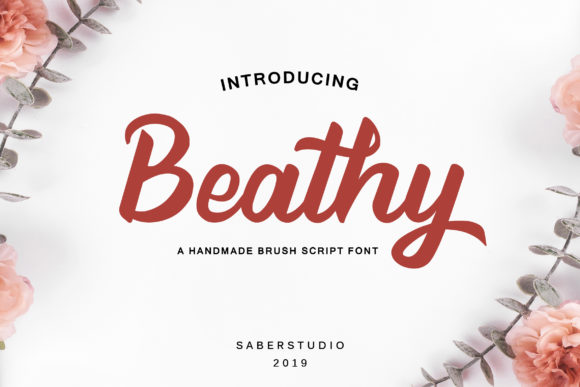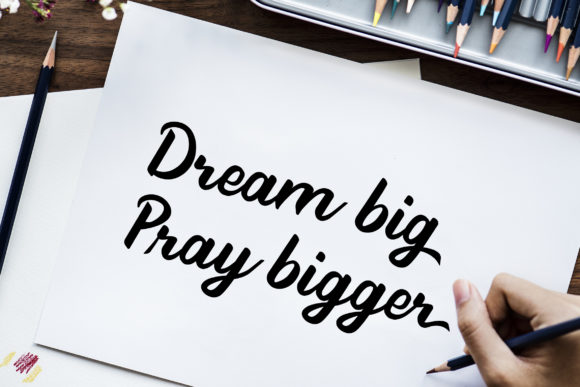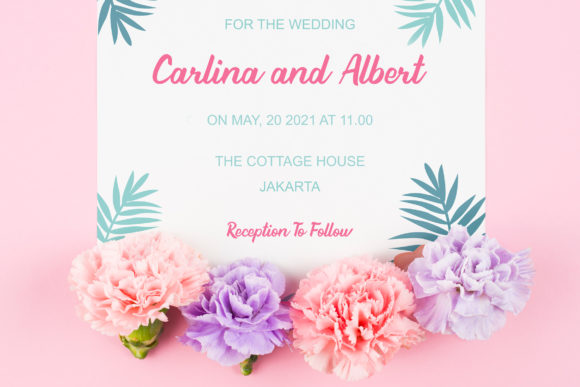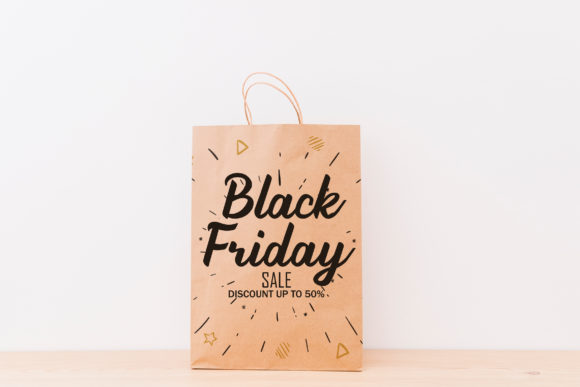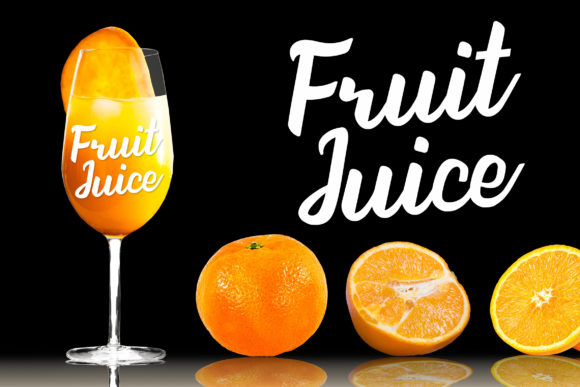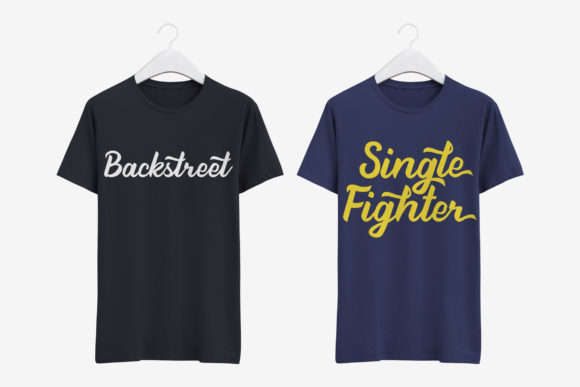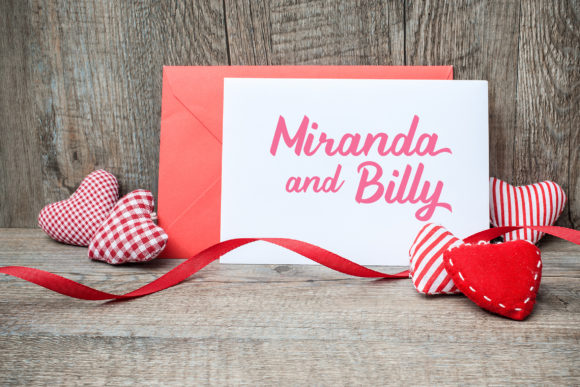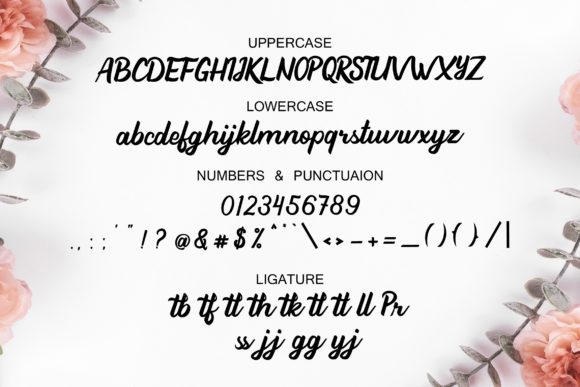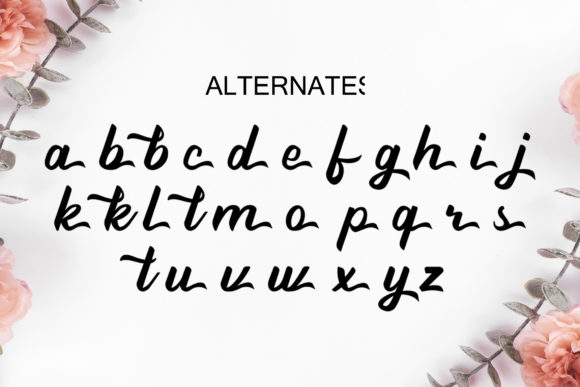
HomeScript FontsBeathy Font Script Fonts Beathy Font FacebookXPinterestWhatsApp Beathy Font Poster 2 Beathy Font Poster 3 Beathy Font Poster 4 Beathy Font Poster 5 Beathy Font Poster 6 Beathy Font Poster 7 Beathy Font Poster 8 Beathy Font Poster 9 About Beathy Font Beathy is a fun and lught handwritten font with a lot of charm. It will effortlessly inspire any new design idea! DOWNLOAD ON CREATIVE FABRICAThis font is sold and delivered by Creative Fabrica. Font Canyon may earn a commission if you buy through this link. People also explored Sweet Kid Font Time Lock My Happy Font Sweet November Font Kimberly Font Avelyn Font Leopard Font Andigo Font Medusa Story Font 311 0 TagsBeathy Font Previous articleLets Get Crazy Duo FontNext articleAshaal Script Font LEAVE A REPLY Cancel reply Comment: Please enter your comment! Name:* Please enter your name here Email:* You have entered an incorrect email address! Please enter your email address here Website: Save my name, email, and website in this browser for the next time I comment. Personal Use Free Eniem Personal Use Free Read more about this font BD Beans Personal Use Free Read more about this font Po Beef Personal Use Free Read more about this font Dream Orphans Personal Use Free Read more about this font BLOG How to Install and Use Fonts on Windows, macOS, and Web Projects How to Install and Use Fonts on Windows, macOS, and Web Projects Fonts are a crucial part of design and branding. Whether you’re designing a... Where to Buy American Fonts Online in 2024 The 10 Best Handwriting Fonts to Add Personality to Your Designs 5 Fonts That Will Dominate Design Trends in 2026